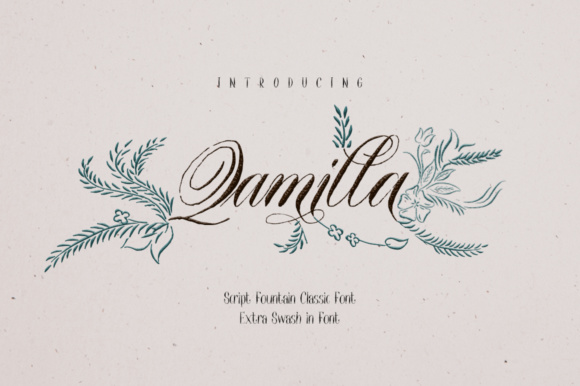
Qamilla Font
In a world of digital monotony, where fonts often lack character and soul, Qamilla Font emerges as a radiant beacon of creativity and charm. This captivating script, meticulously crafted by mcjer.studio, is a testament to the enduring power of handwritten artistry. With its graceful curves and elegant flourishes, Qamilla transports you to a bygone era of romance and sophistication, where every letter is a work of art.
Unleash the boundless potential of Qamilla and let your designs flourish with unparalleled beauty. This versatile font is a chameleon of style, effortlessly adapting to a myriad of creative endeavors. Whether you're crafting logos that exude timeless elegance, designing invitations that ooze romance, or creating social media graphics that capture attention, Qamilla rises to the occasion with unwavering grace.
Step into a realm where imagination reigns supreme and typography takes on a life of its own. Qamilla is more than just a font; it's an invitation to embark on a creative odyssey, where each project becomes a masterpiece. With its ability to transform ordinary words into extraordinary works of art, Qamilla elevates your designs to new heights, captivating audiences and leaving a lasting impression.
Embrace the allure of Qamilla and watch as your projects blossom into visual symphonies. Experience the joy of creating designs that resonate with your audience on a deeper level, designs that speak to their hearts and ignite their imagination. Qamilla is not merely a font; it's an experience, a journey into the realm of artistic expression, where beauty and elegance converge to create something truly extraordinary.